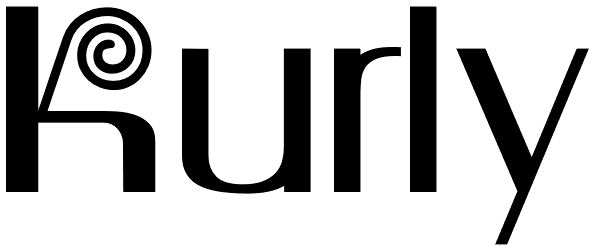
Kurly
I was working on an unrelated job with curls and wondered how I could apply them to a font. Well, here it is, all pair-kerned. A little silly but fun.